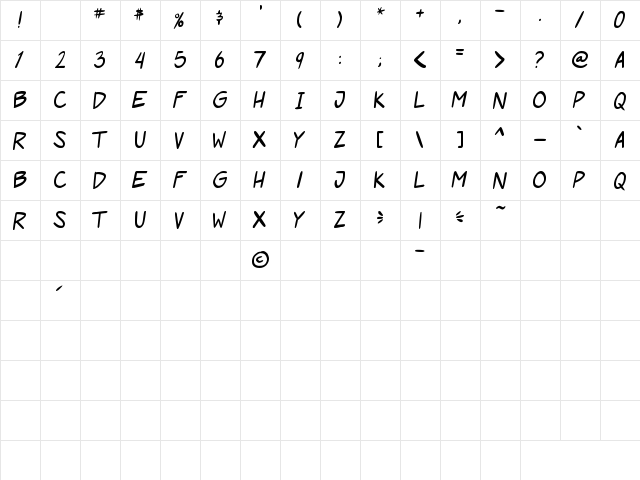
Roof Runners Regular
| Designer | Andeh Pinkard |
Design Context for Roof Runners Typeface
Roof Runners is a composed and adaptable typeface that performs quietly and consistently across a wide range of design contexts.